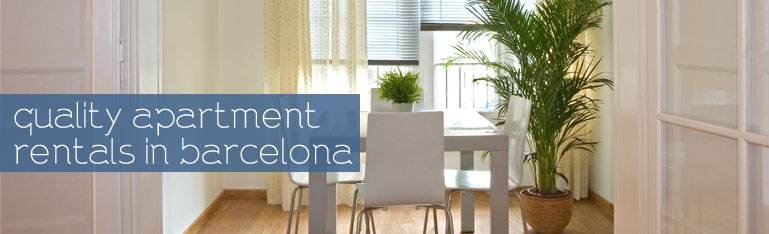
The typography aardvarkbold has its grace as well as a magnificent artisan beauty.
Incredible typography ideal for publishing fields. It works very well in massive texts.
This source is product of a technical innovation spectacular, perfect for corporative uses. the typography aardvarkbold obtains an excellent quality in screen and supports several different languages.
aardvarkbold surprises to us to have elements of the modern writing without losing the classic bases. The result is elegant and familiar without finding sources similar to her. A unique style
The need for writers even after movable type can be understood as a function of the time that it took to set type. While a book was a large production, and the amount of time justified the many copies, some writing did not need to be editioned in large quantities, and although lengthy in its text, would not justify the time needed for setting type. Legal and business uses demaned a type like aardvarkbold. And one other profession benefitted from the practice of constantly drawing letters - the typographer, or type designer.
aardvarkbold is a type of the future since it is such a big change. Perhaps the single most successful type change of the 20th Century was the widespread use of this font for text in advertising. The types, there is a clear sense that instead of letters looking different from each other, they look like they all belong to a same class. Design has made each letter as important as every other letter. If you think about it, this makes reading a sort of word-processing that a reader does as they scan a page smoothly.